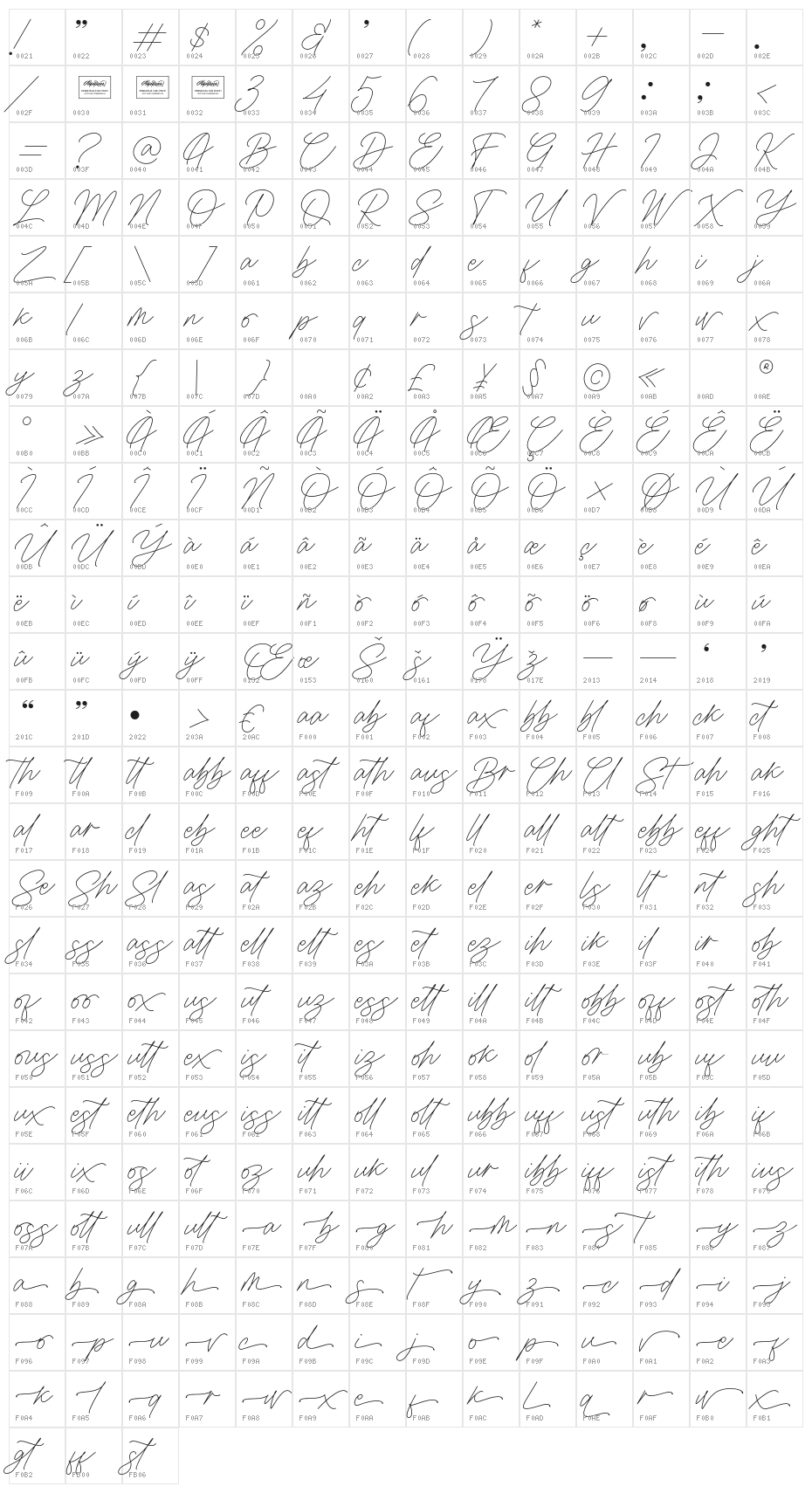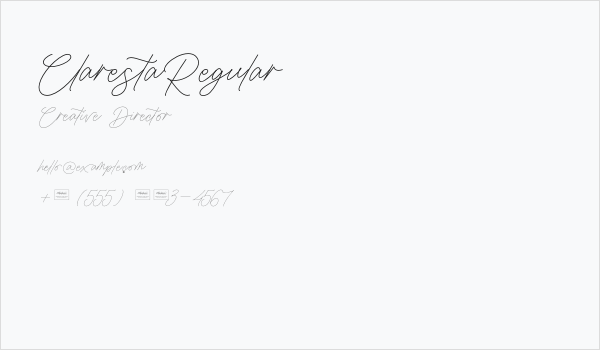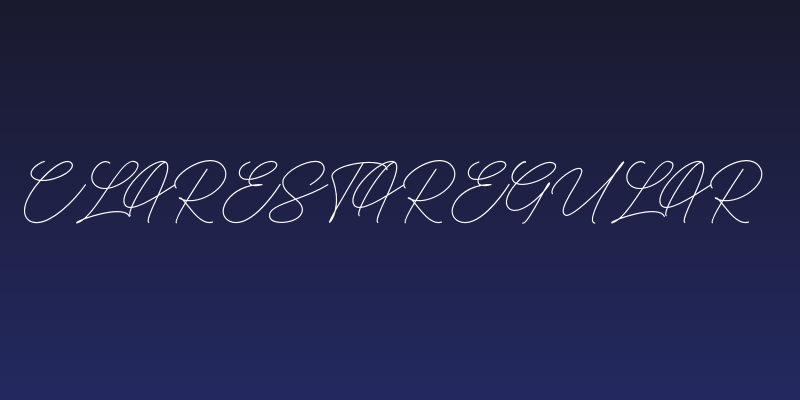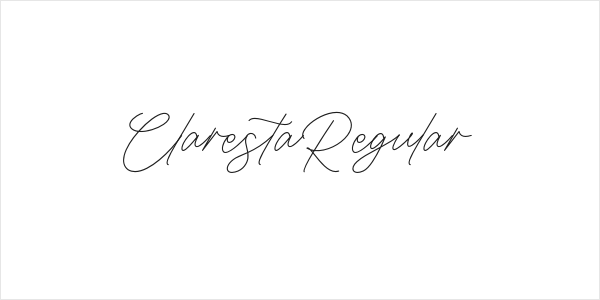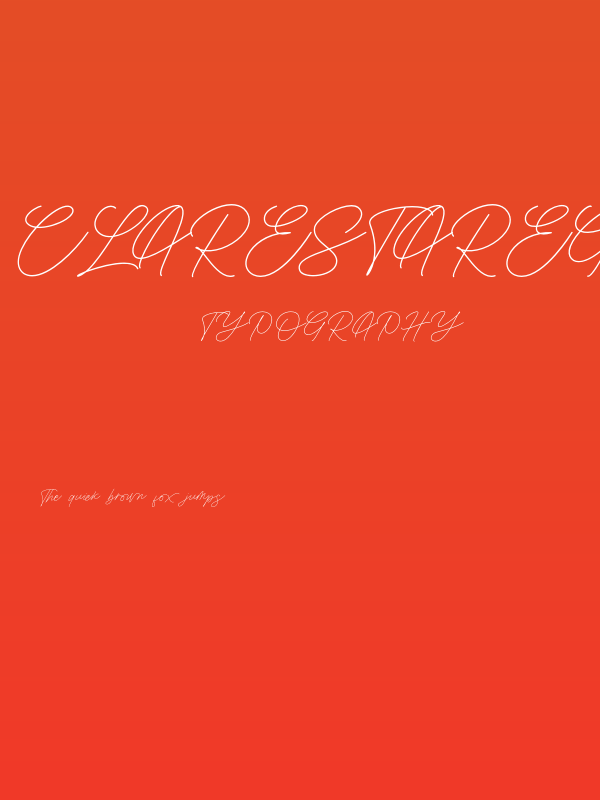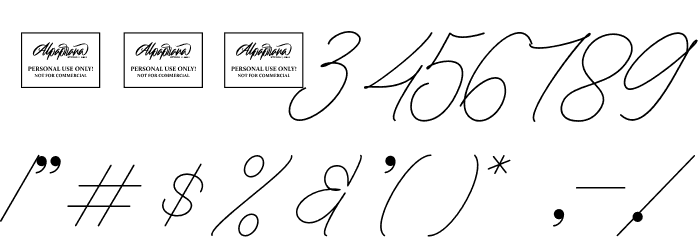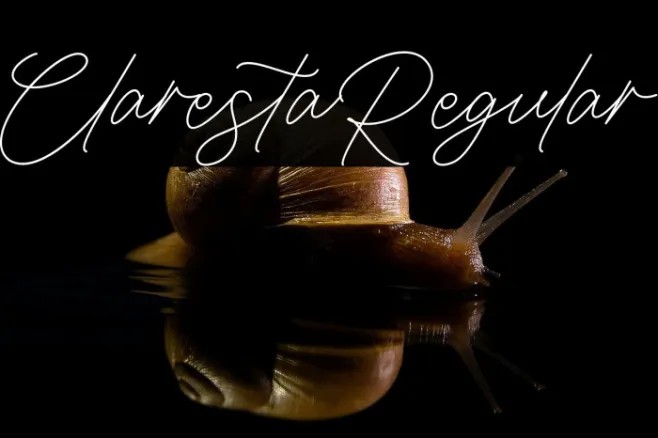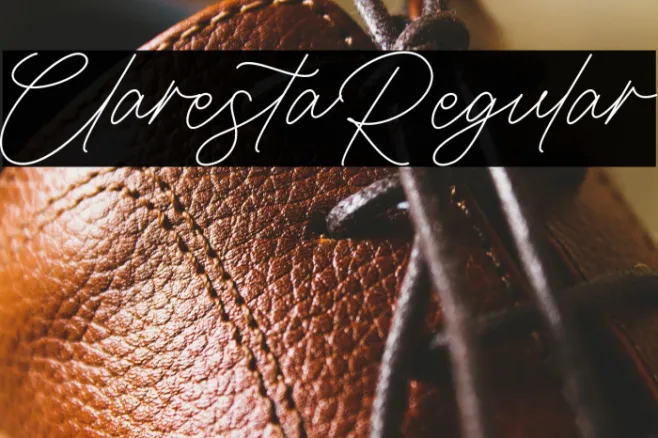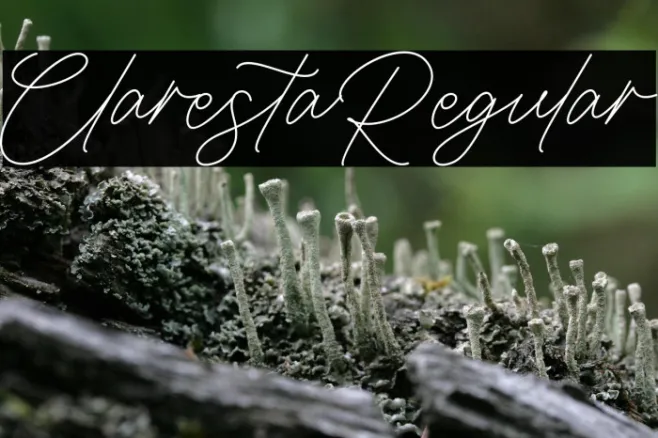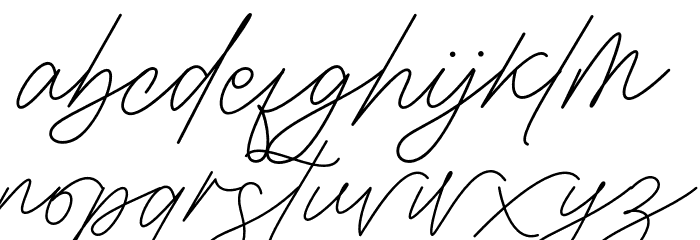
ClarestaRegular Font
ClarestaRegular Description
This elegant script font features a fluid, cursive style with graceful loops and swirls, reminiscent of traditional calligraphy. The characters are interconnected, creating a seamless flow that enhances its sophisticated appearance. The uppercase letters are slightly larger and more ornate, while the lowercase letters maintain a consistent, flowing baseline. The numerals and special characters are designed with the same attention to detail, ensuring a cohesive look across all elements. This font exudes a sense of elegance and refinement, making it ideal for projects that require a touch of class.